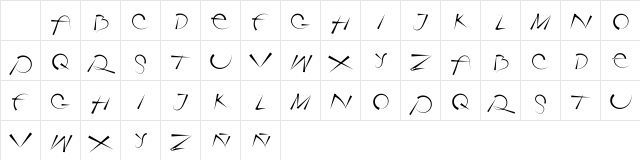
Rotorica Medium Free Font
Rotorica Medium
Design Context for Rotorica
Rotorica is a composed and adaptable typeface that performs quietly and consistently across a wide range of design contexts.